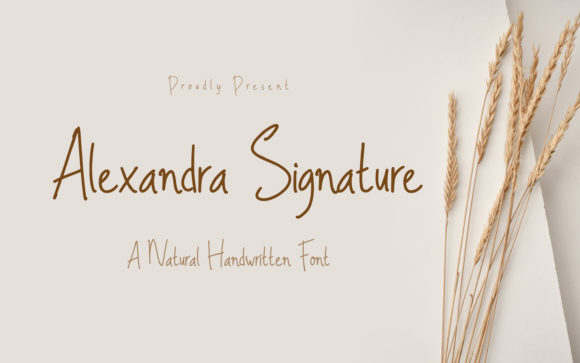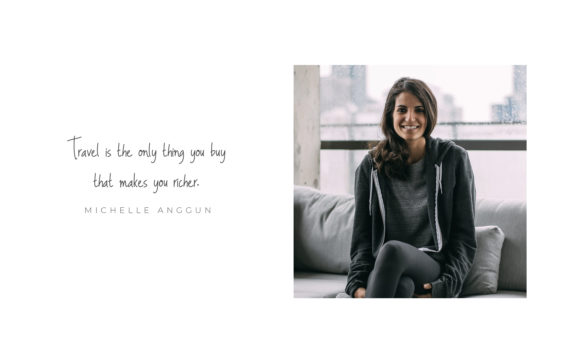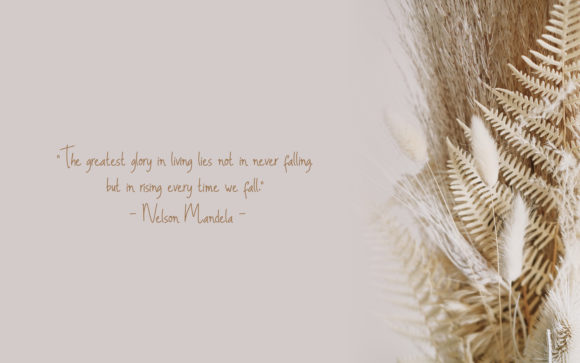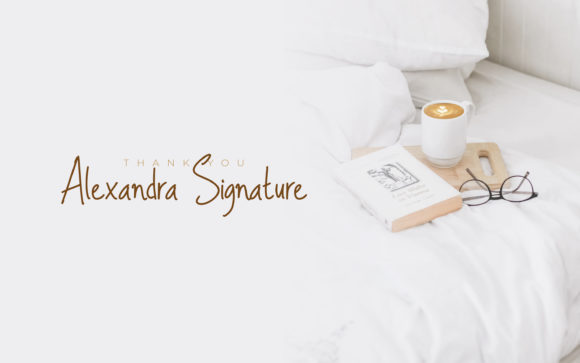
About Alexandra Signature Font
Alexandra Signature is a cute, readable and modern script font. Thin and friendly, this font will be an ideal choice for a wide range of casual or informal designs. Use Alexandra Signature for your creations and explore its endless possibilities.